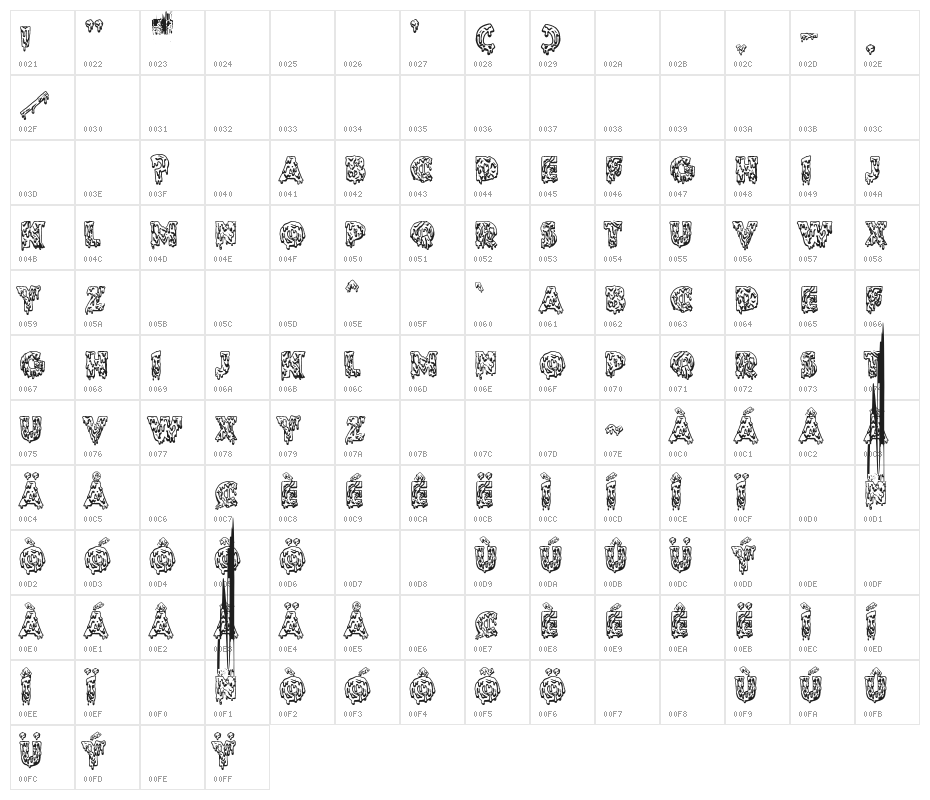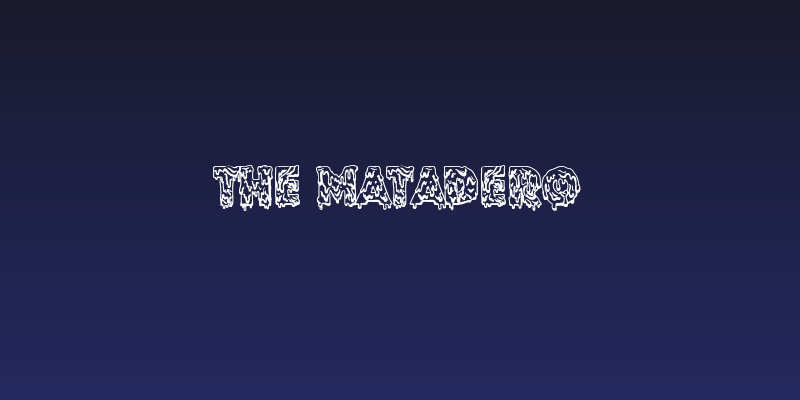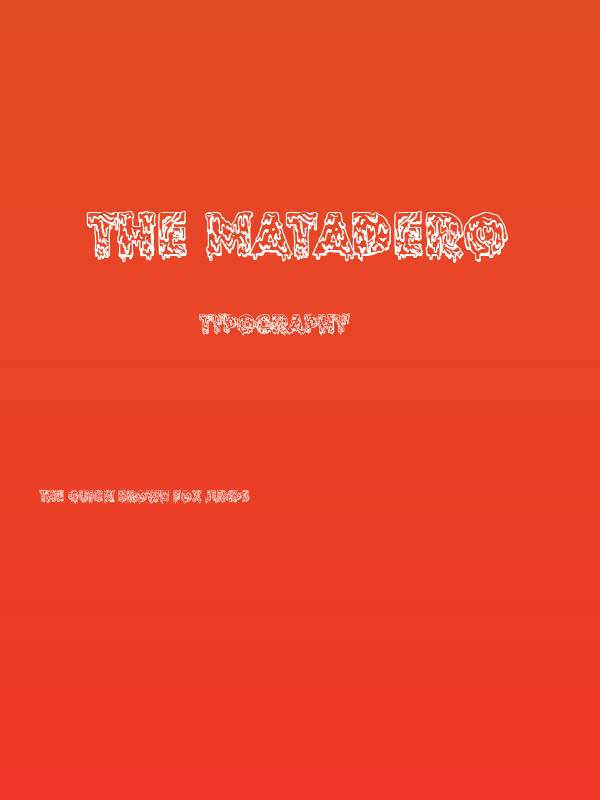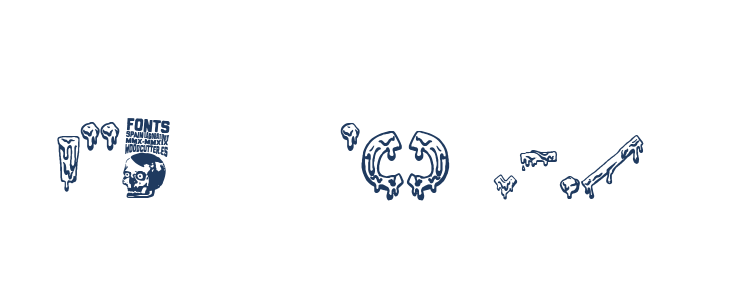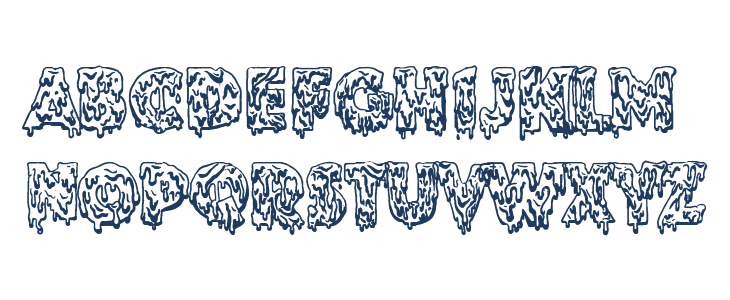
The Matadero Font
The Matadero Description
A highly decorative, dripping, horror-inspired display font with thick outlines and irregular, melting shapes, evoking a sense of goo or slime. The characters are uppercase, bold, and have a playful yet eerie appearance, suitable for attention-grabbing designs.
| Overall Style | Decorative, Horror, Playful |
| Use Case | Headlines, Logos, Posters, Event Titles |
| Proposed Projects | Halloween posters, horror movie titles, haunted house flyers, themed party invitations, spooky event branding. |